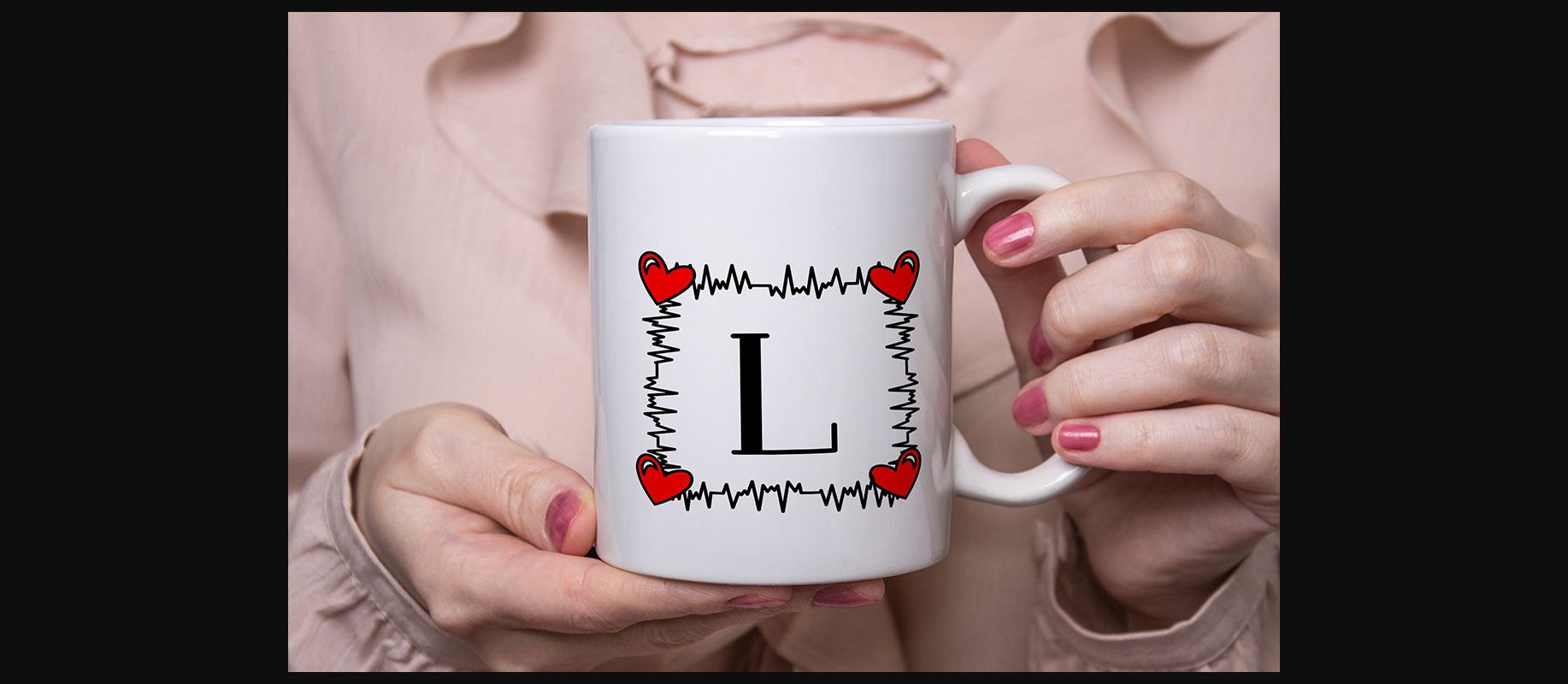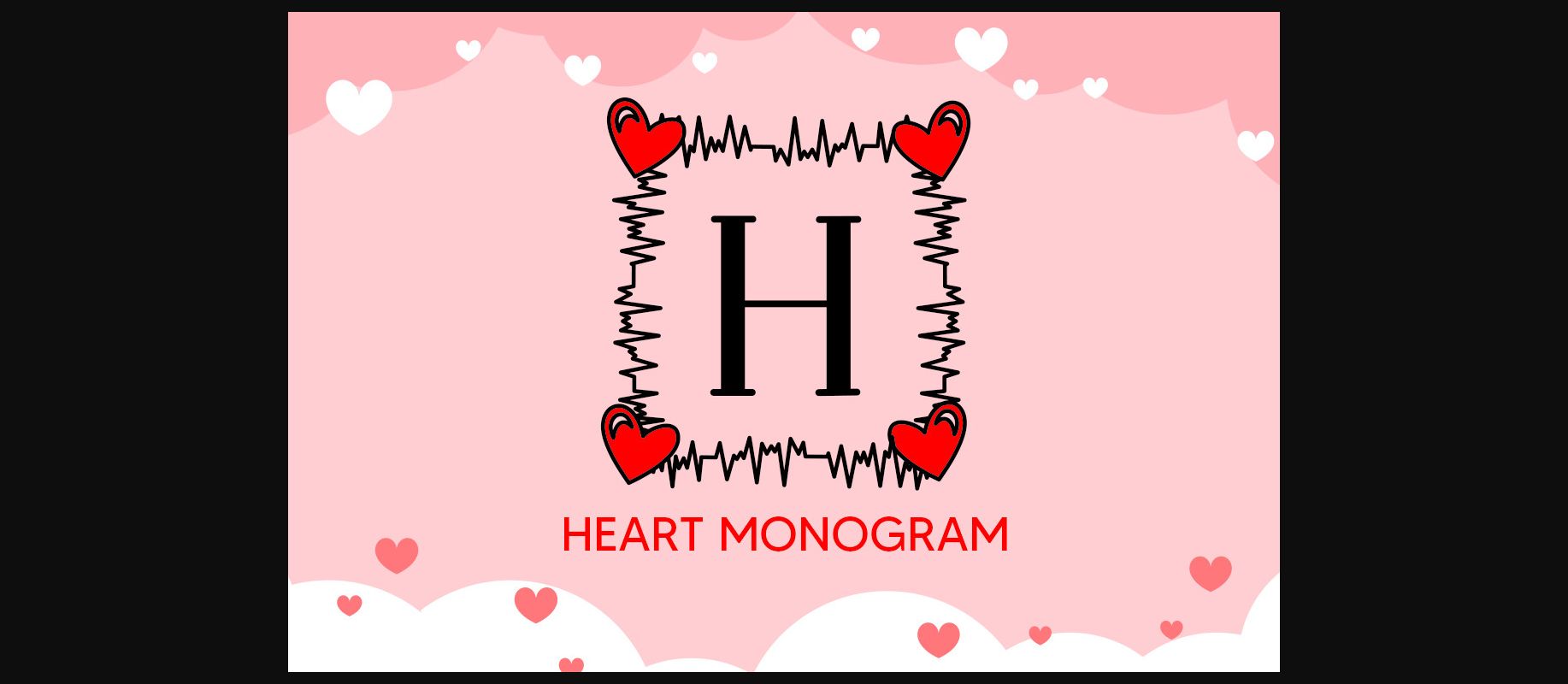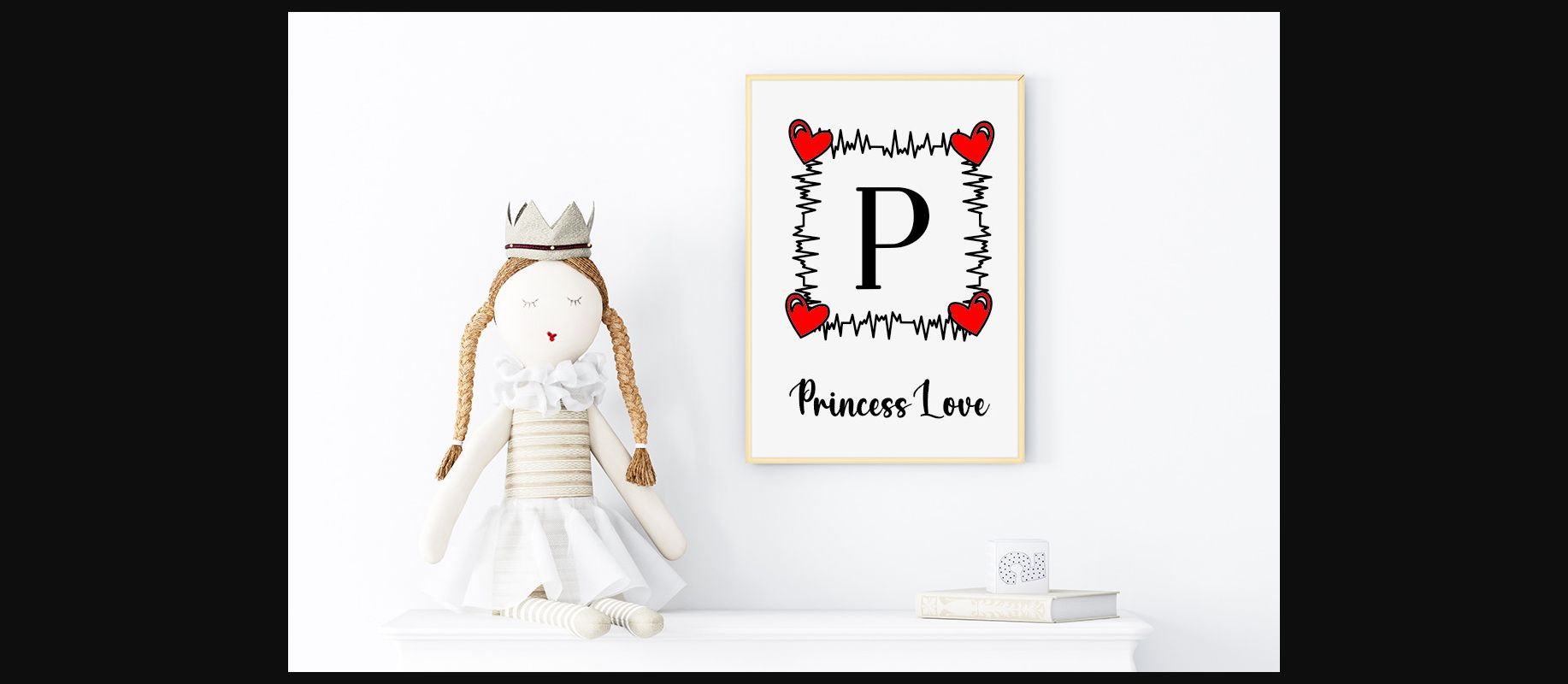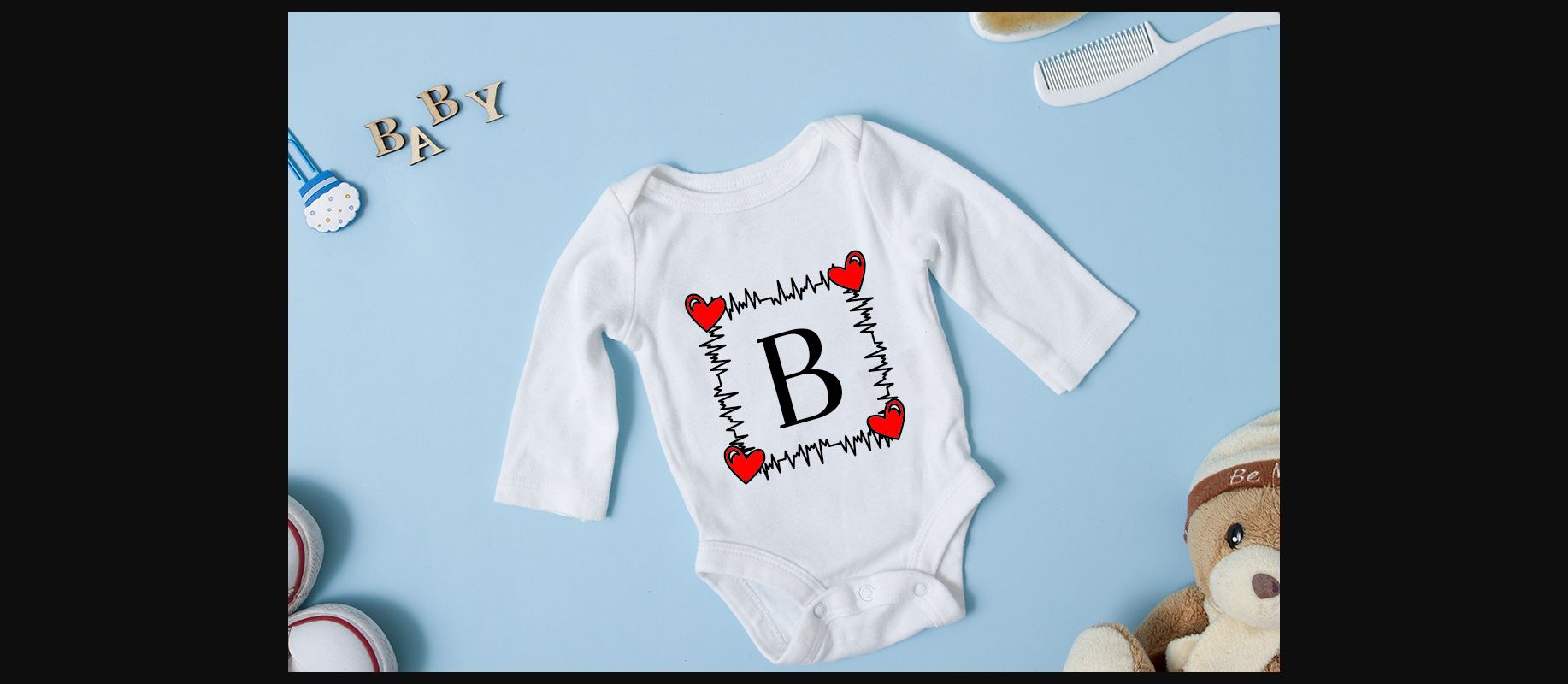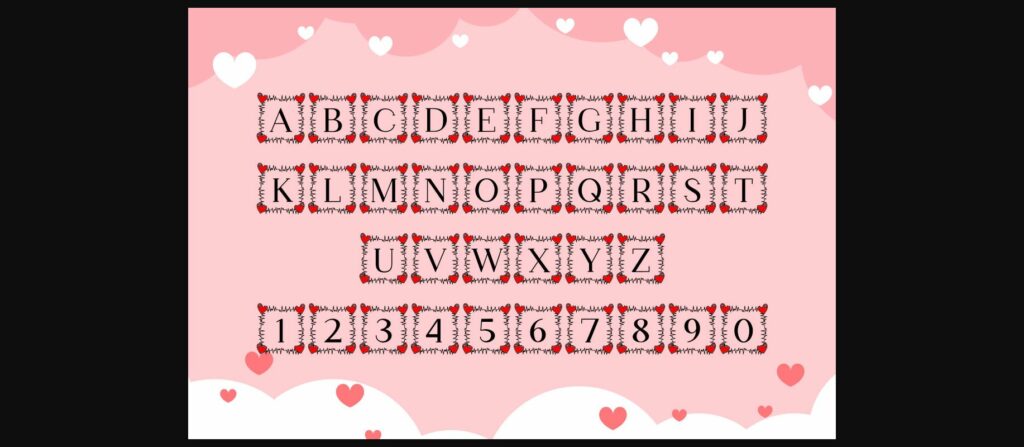
Heart Monogram Font
Heart Monogram is a stunning, playful and charming decorative font, that is easy to remember.
Use it for a wide range of design occasions such as logos, apparel, photography, watermarks, quotes, blog headers, posters, weddings, invitations, stationery, branding, and much more.